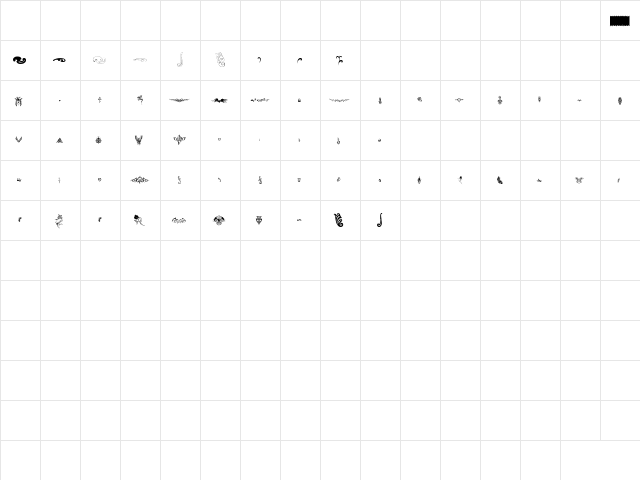
ReZZyN Tattoo 1 Regular
Design Context for ReZZyN Tattoo 1 Typeface
ReZZyN Tattoo 1 is a composed and adaptable typeface that performs quietly and consistently across a wide range of design contexts.